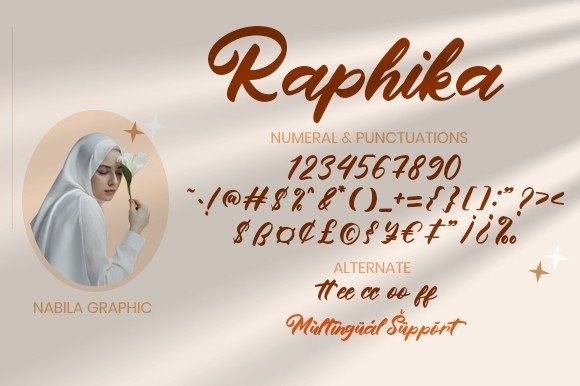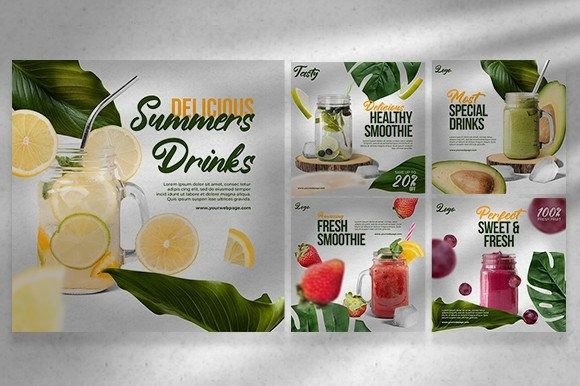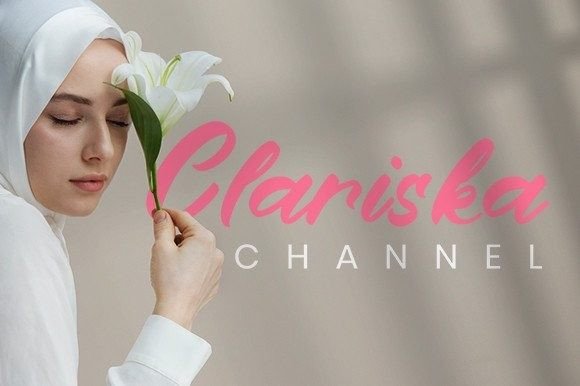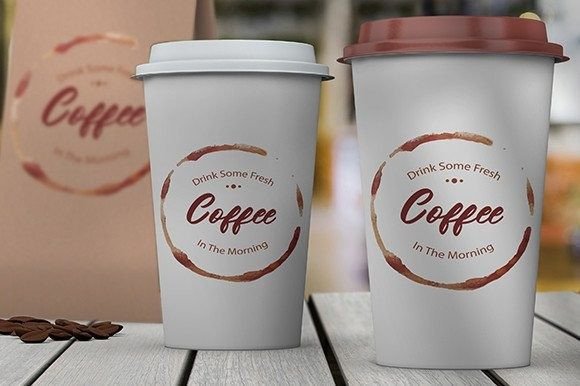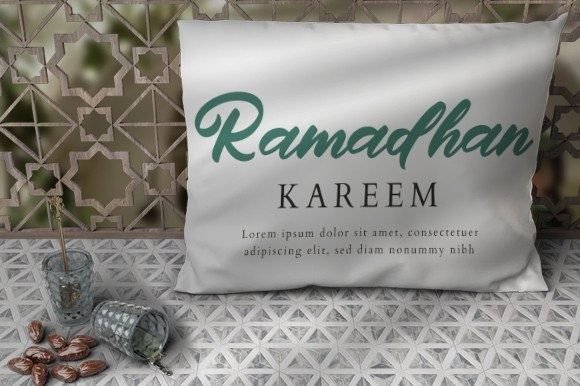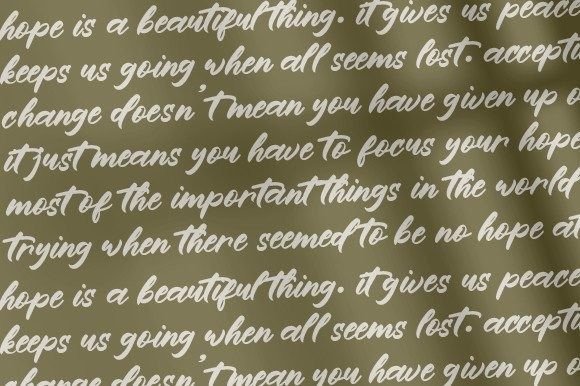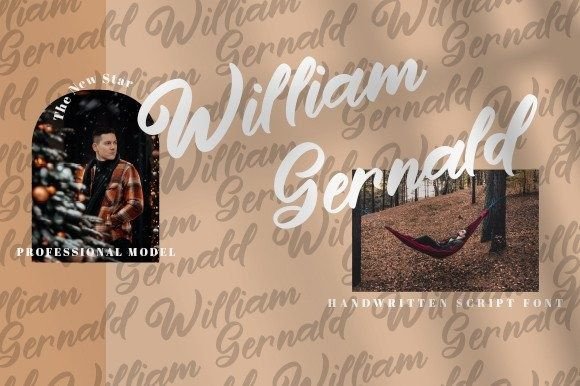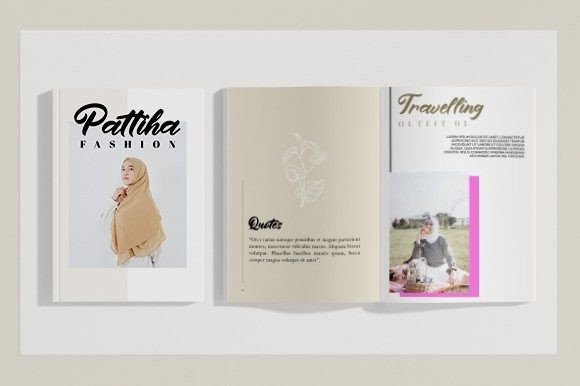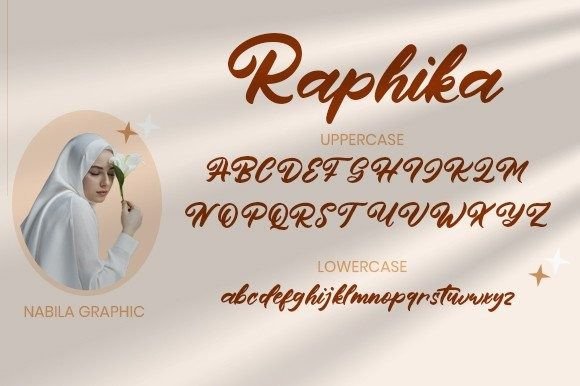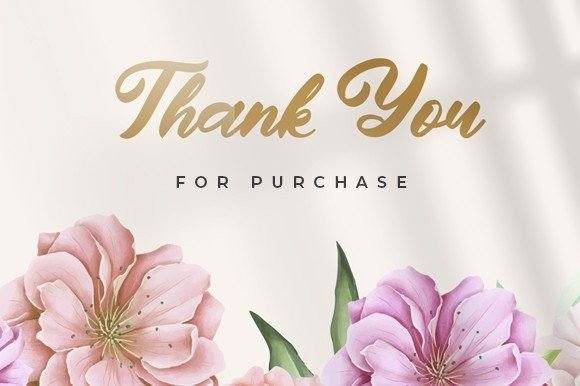
Raphika Font
About Raphika Font
Introducing Raphika, a script font characterized by its natural movement and elegant style. This font is crafted to bring a sense of fluidity and sophistication to your designs, making it perfect for a diverse range of applications. Whether you’re working on branding projects, logos, wedding designs, social media posts, advertisements, product packaging, label design, photography, watermark, invitations, stationery, or any project requiring a handwriting touch, Raphika is designed to elevate your creations with its elegant and natural aesthetic.
The natural movement of Raphika’s script style adds a dynamic and organic quality to your text, creating a visual rhythm that is both pleasing and stylish. This unique feature makes it well-suited for projects where a handwritten, personalized touch is desired.
Raphika’s versatility shines across a spectrum of design applications. It is an ideal choice for branding projects, where the font’s elegant style can help establish a distinctive and memorable visual identity. Logos created with Raphika exude sophistication and character.
In wedding designs and invitations, Raphika brings a touch of elegance and warmth, setting the tone for a romantic celebration. Social media posts and advertisements benefit from the font’s handwritten taste, making your messages more engaging and relatable.
Product packaging and label designs achieve a personalized and artisanal look with Raphika. Its elegant style enhances the overall aesthetic, making your products stand out on the shelves. Whether applied to product designs or stationery, Raphika brings a level of craftsmanship to your projects.
Raphika is more than just a font; it’s a versatile design tool that invites you to infuse your projects with a unique handwriting taste. Its natural movement and elegant style make it a captivating choice for a wide array of design applications, allowing you to create visually stunning and impactful designs across various platforms. Let Raphika be the elegant script font that transforms your ideas into beautifully crafted creations.